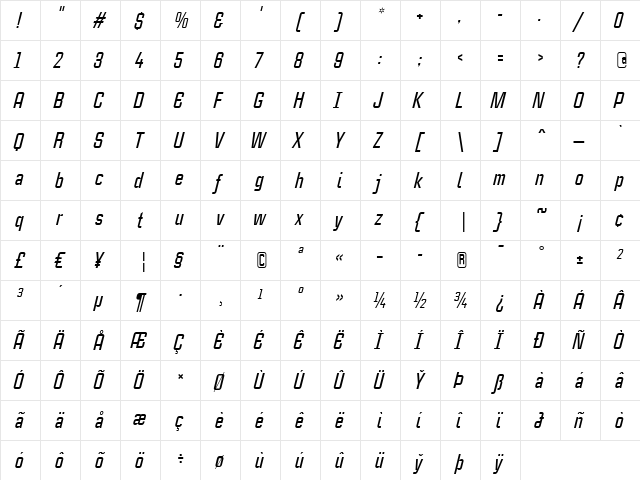
CaseStudyNoOne LT Medium Italic Font Preview
| Style | Medium Italic |
Design Context for CaseStudyNoOne LT Typeface
CaseStudyNoOne LT takes a measured approach to typography — its balanced proportions and neutral character make it a reliable workhorse for both digital and print work. Its italic angle brings a sense of urgency and motion to the letterforms. Its slender proportions lend an understated elegance to any composition.
Pro Tip: Use CaseStudyNoOne LT for emphasis, pull quotes, and subheadings where its slanted energy can add rhythm to the layout.